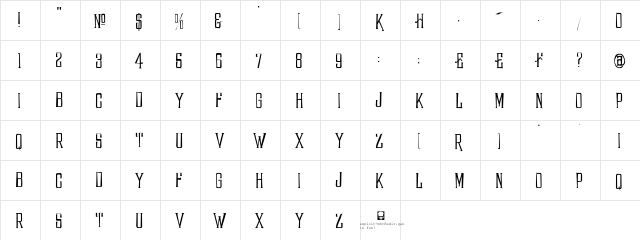
LHF Hamilton Nailhead Regular
| Foundry | John studden for Letterhead Fonts |
| Designer | John Studden |
Design Context for LHF Hamilton Nailhead Typeface
LHF Hamilton Nailhead is a composed and adaptable typeface that performs quietly and consistently across a wide range of design contexts.